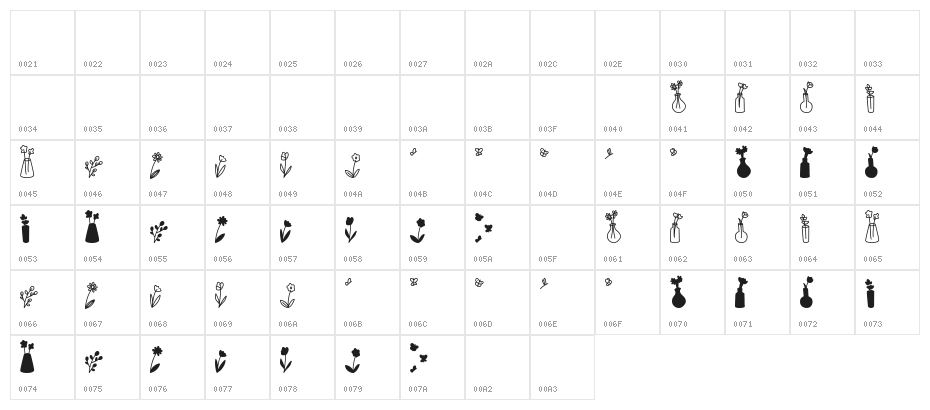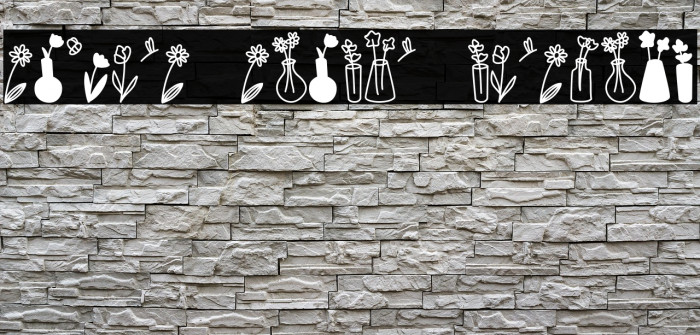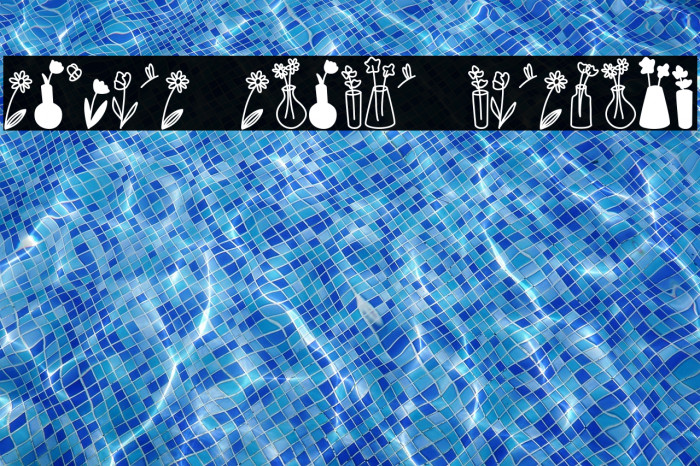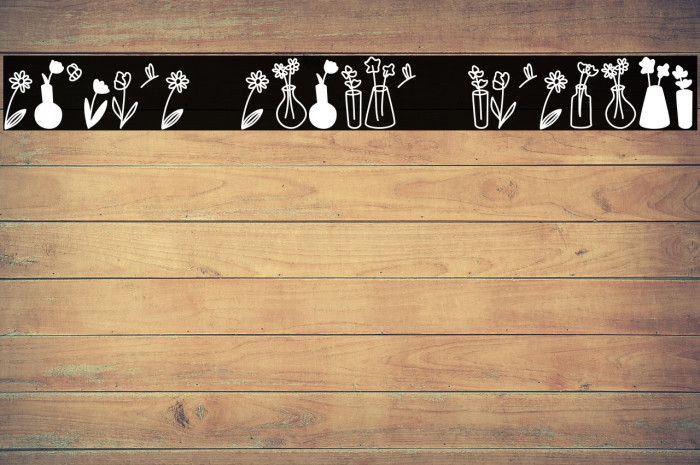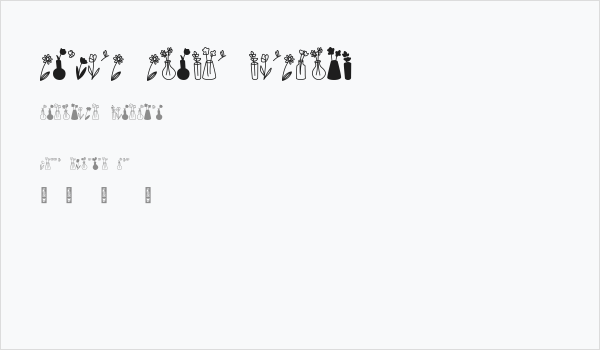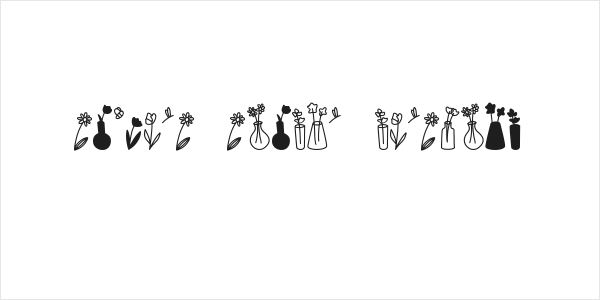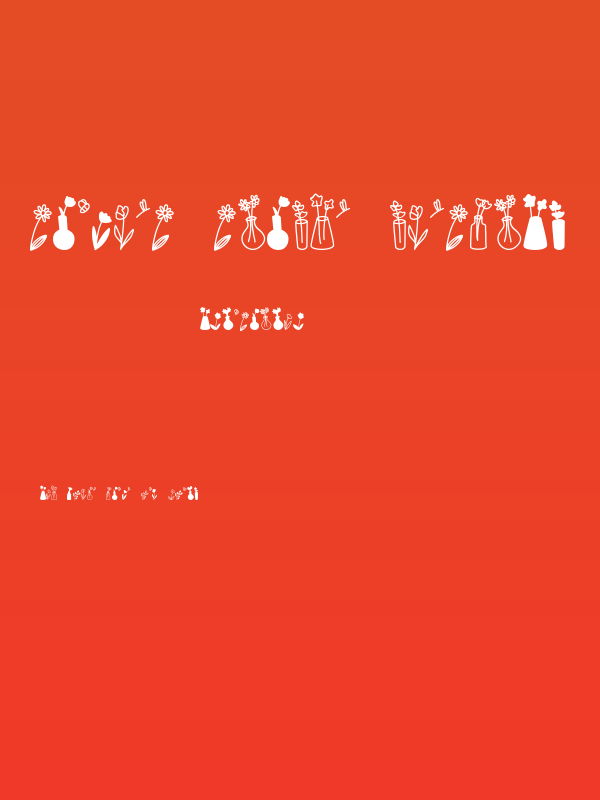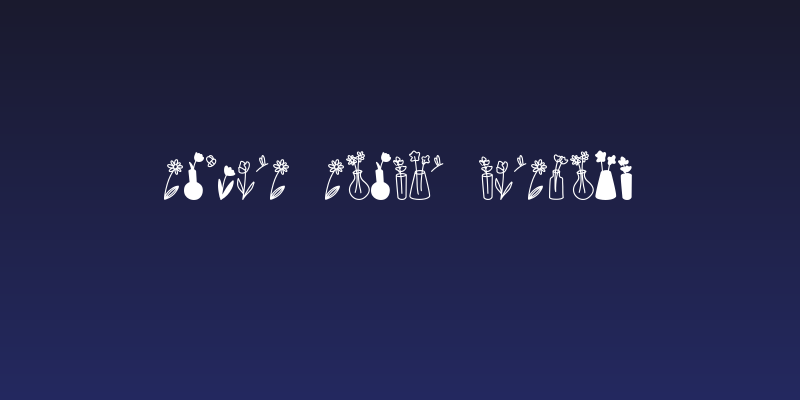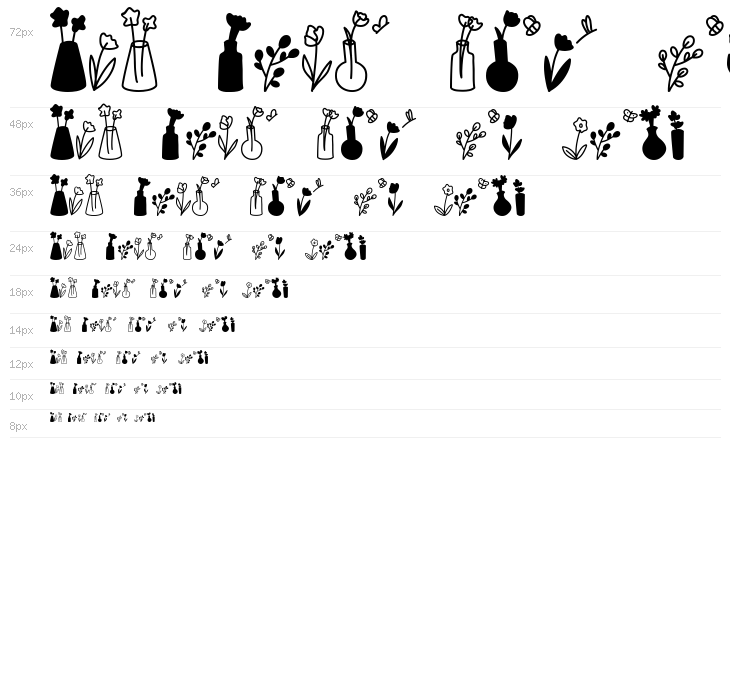
Growing Garden Dingbats Font
Growing Garden Dingbats Description
This collection features a charming array of botanical and floral illustrations, each rendered in a playful and whimsical style. The designs include various vases with flowers, individual blossoms, and delicate leaves, all depicted with a hand-drawn aesthetic. The elements are bold and clear, making them suitable for decorative purposes. The illustrations are consistent in style, offering a cohesive look that can be used to enhance creative projects with a natural theme.
| Use Case | Logos, Decorative elements, Craft projects |
| Proposed Projects | Ideal for greeting cards, scrapbooking, wedding invitations, and nature-themed branding. |